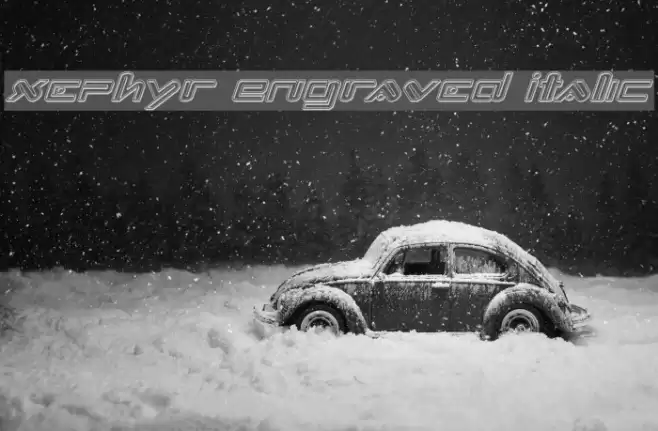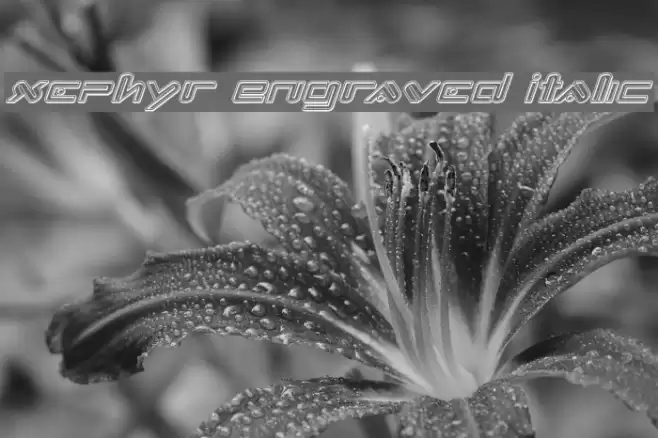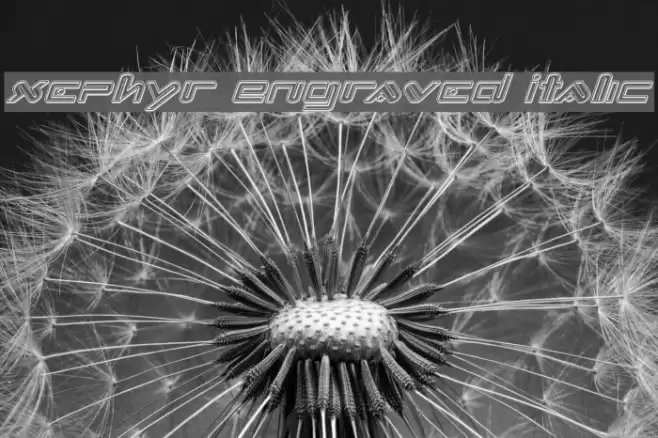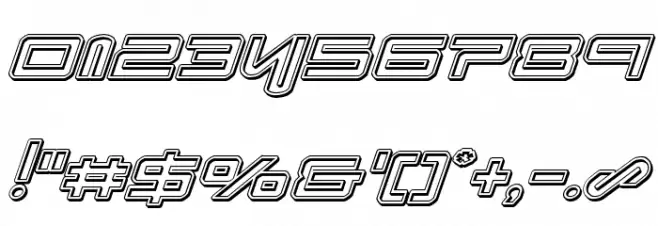
Xephyr Engraved Italic Font
Xephyr Engraved Italic Description
This font features a unique engraved style with a futuristic and geometric aesthetic. The characters are outlined with a double line, creating a sense of depth and dimension. The italic slant adds a dynamic and forward-moving feel, making it stand out in any design. The uppercase and lowercase letters maintain a consistent style, with angular and sharp edges that give it a modern look. Numbers and special characters are designed to match the overall theme, ensuring uniformity across all text elements.
A futuristic, engraved italic font with geometric outlines from Uncategorized fonts.
- Proposed Projects: Ideal for sci-fi themed projects, tech branding, video game titles, and futuristic posters.